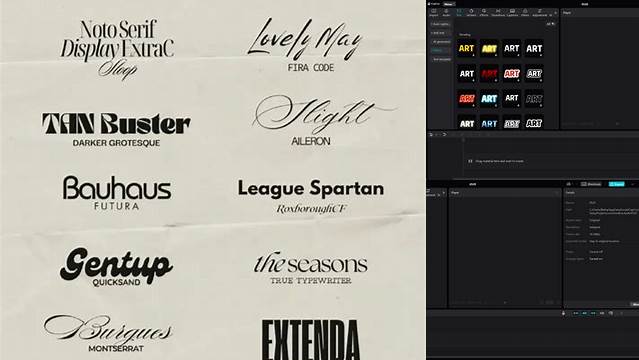
Hey guys! Ever wondered how to spice up your CapCut videos with some seriously cool fonts? You're in the right place! We're diving deep into the world of aesthetic fonts for CapCut, showing you how to download them, install them, and make your videos pop. Get ready to level up your editing game and impress your friends and followers. This guide is designed to be super user-friendly, so even if you're a total newbie, you'll be creating stunning visuals in no time. Let's get started and transform those plain videos into eye-catching masterpieces!
Why Aesthetic Fonts Matter for Your CapCut Videos
Alright, so why should you even bother with aesthetic fonts for CapCut? Well, think about it this way: your videos are like visual stories, and the text you use is a huge part of that storytelling. Choosing the right font is like picking the perfect outfit – it sets the tone, conveys your personality, and makes a statement. Aesthetic fonts aren't just about looking pretty; they're about enhancing your message and grabbing your audience's attention. A well-chosen font can make your video feel more professional, artistic, or fun, depending on what you're going for. Imagine a travel vlog with a playful, handwritten font or a sleek, modern font for a tech review. The font choices alone can instantly change the vibe and impact of your video. Furthermore, using unique and aesthetic fonts helps your content stand out. In a world overflowing with videos, standing out is key! Everyone uses the same basic fonts, but if you customize your videos with unique fonts, you will catch your audience's attention, and give the videos a specific and personalized vibe. Think of it as your visual signature. It adds a layer of personality that makes your content instantly recognizable and memorable. Ultimately, the right font can make your videos look a million times better, making your content more engaging and shareable. It's a simple tweak that can have a massive impact on your overall video quality and how people perceive your work. So, are you ready to make your videos look incredible? Keep reading to find out how to get started!
The Power of Visual Communication
Let's dive a little deeper into why aesthetic fonts for CapCut are so crucial for effective video creation. Think of your video as a complete package; it includes everything from the background music to the transitions, but the text is just as important. Your font choices directly affect how viewers interpret your message. A bold, sans-serif font might convey confidence and clarity, while a delicate script font could give off a sense of elegance and sophistication. The right font will subtly reinforce your message and guide the viewer's eye to the most important information. It's all about setting the mood! The psychology of fonts is a real thing. Different fonts can evoke different emotions and associations. A playful, rounded font can make your video feel friendly and approachable, perfect for tutorials or vlogs. A more formal font might be best for a corporate intro video. Moreover, fonts also play a huge role in branding. If you are creating videos consistently, you may want to consider using the same font over and over again, to ensure that the videos appear as if they are being created by the same person. Consistent font use helps build brand recognition. Your audience will start to associate that font with your content, reinforcing your identity and making your videos more memorable. In essence, aesthetic fonts for CapCut are a fundamental tool in your video editing arsenal, giving you the power to shape the visual narrative, connect with your audience on a deeper level, and create content that leaves a lasting impression.
Premium Font Marketplaces
If you are looking for something a little more unique, you can also purchase fonts from websites.
- Creative Market: This is a great place to find premium fonts designed by independent artists. These fonts come with commercial licenses, so you do not have to worry about copyright infringement. You will find a wide variety of creative and stylish fonts for videos here.
- Envato Elements: Envato Elements is a subscription service that gives you access to a massive library of fonts, graphics, and video templates. This is a great choice if you're planning to use fonts regularly. This platform offers a wide variety of fonts, from handwritten scripts to modern sans-serifs. The subscription model makes it a cost-effective option for regular video creators.
Remember, when downloading fonts, it's important to always check the licensing terms. This ensures that you can use the font legally and commercially, if needed. Now, let's get these fonts installed in CapCut!
Installing Aesthetic Fonts in CapCut: A Step-by-Step Guide
Alright, you've got your awesome aesthetic fonts for CapCut downloaded. Now, it's time to get them installed and ready to use in your videos. Here's a simple step-by-step guide to help you.